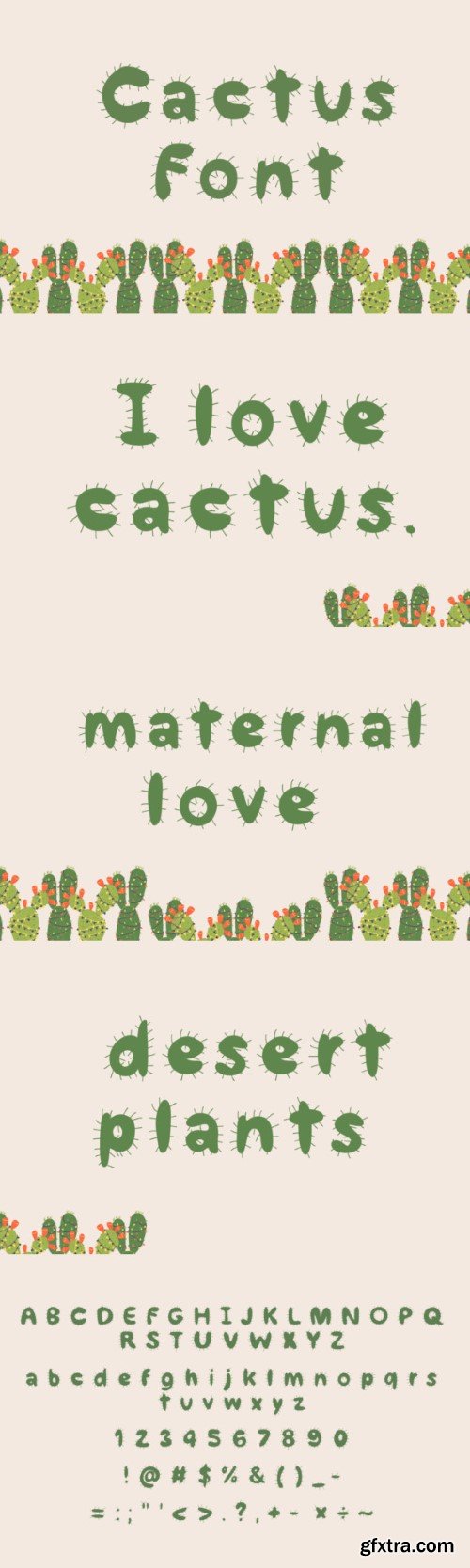
Cactus Font
Cactus font is a decorative font that is perfects project related to Natural, desert plant, and strong or power. Use it on your card, flyers, banners, book titles, social media and so much more!